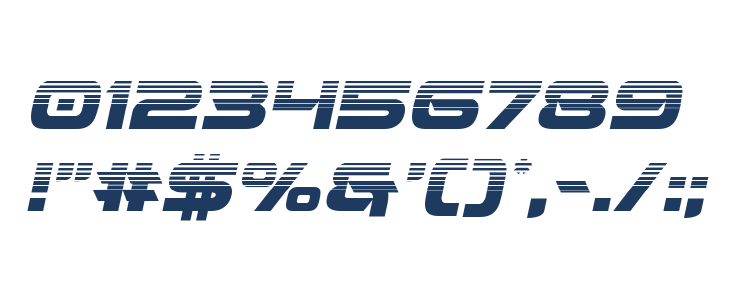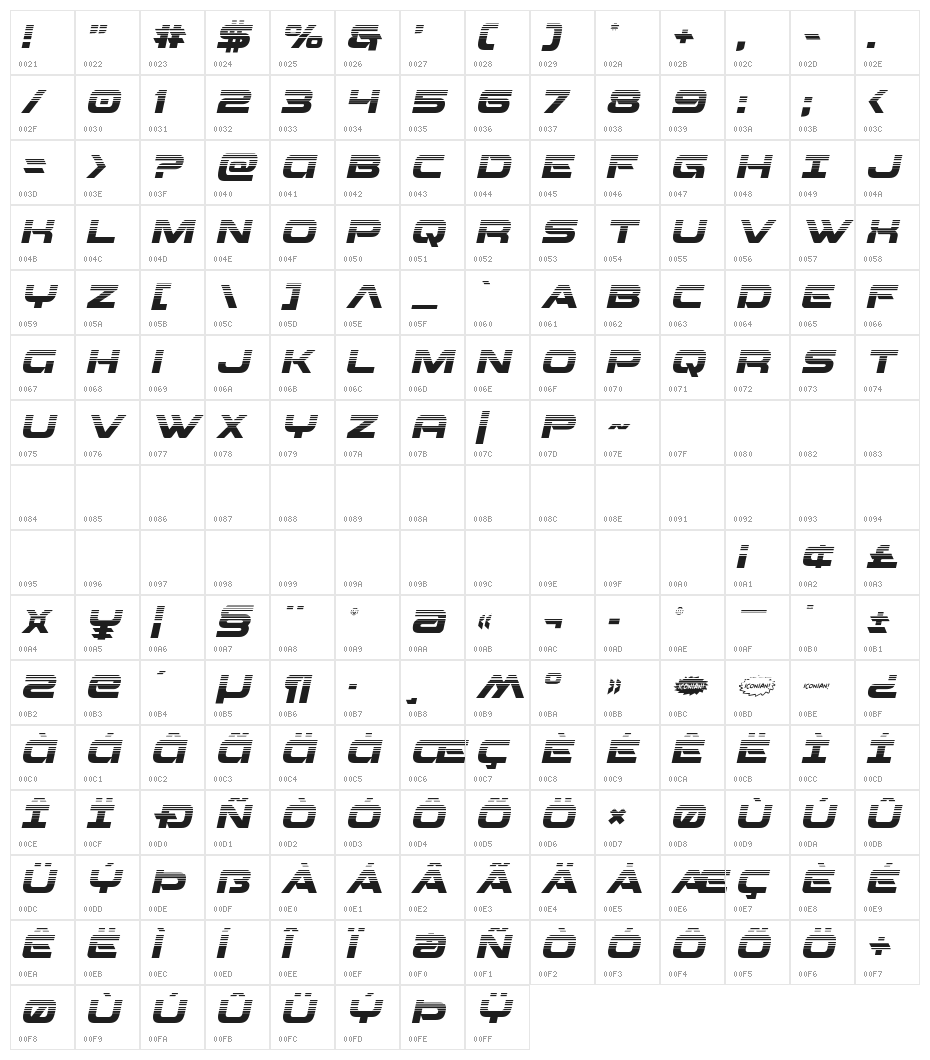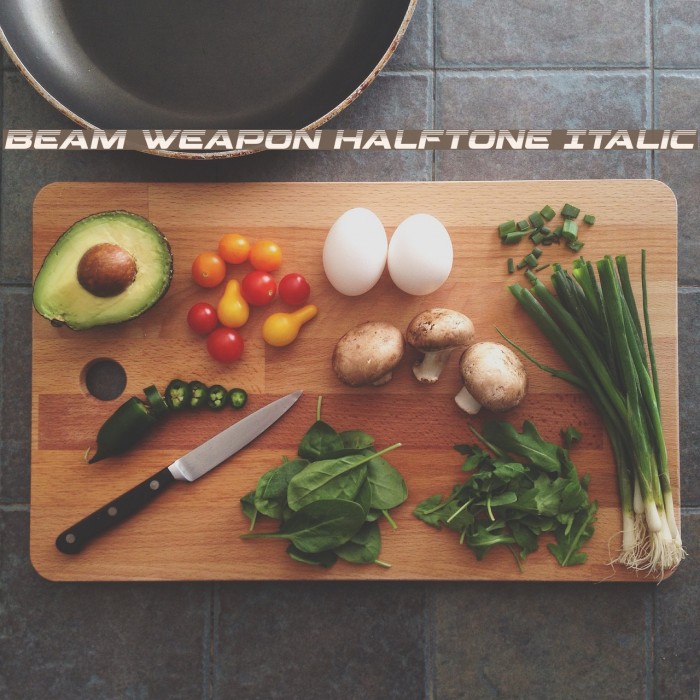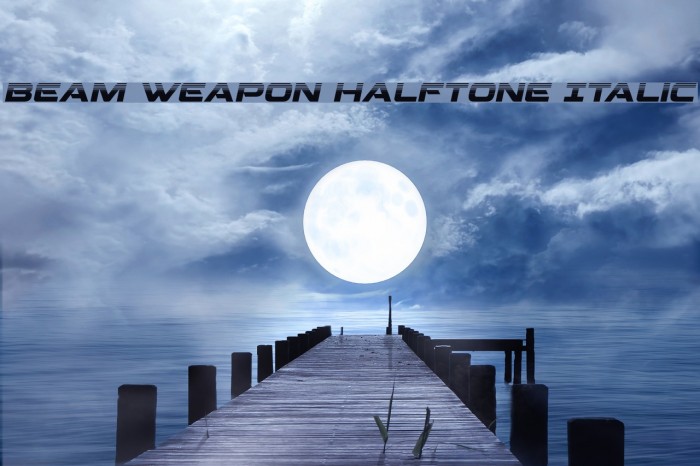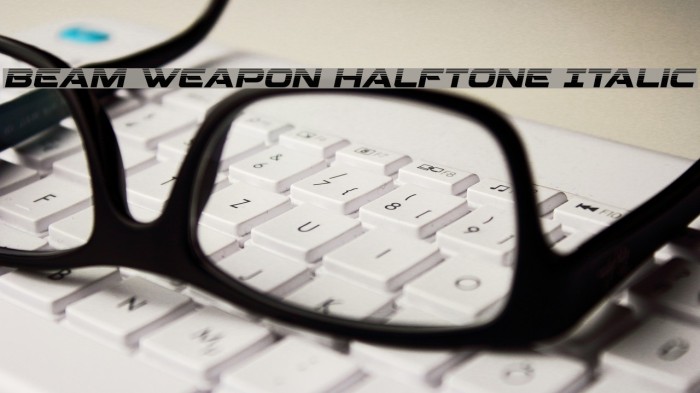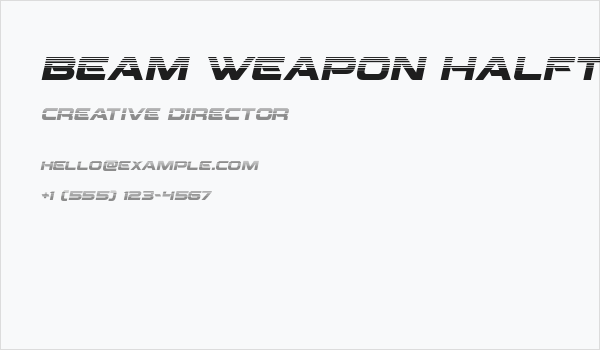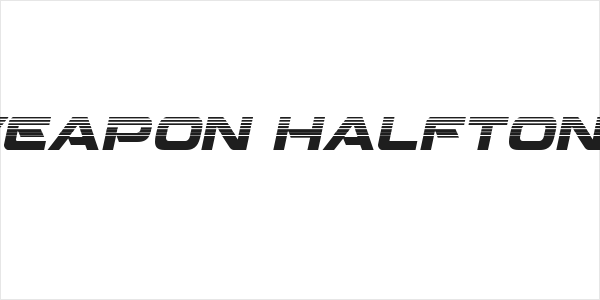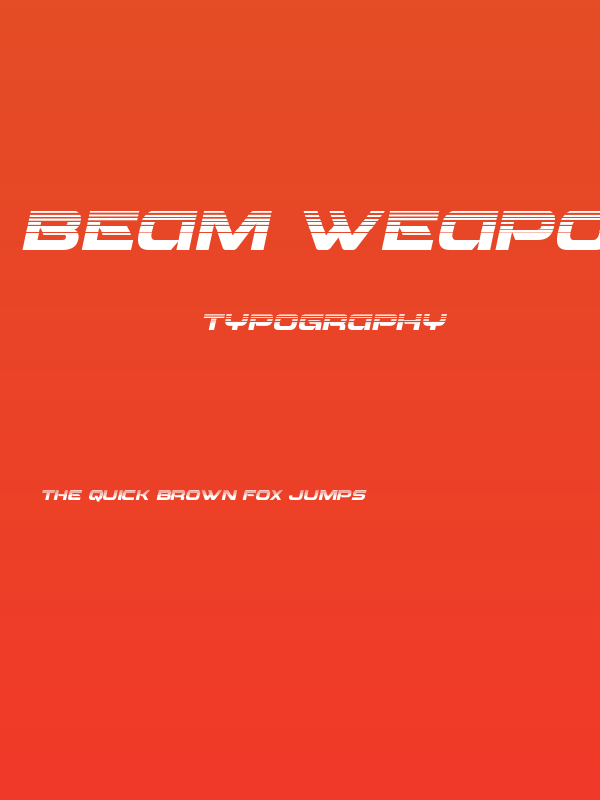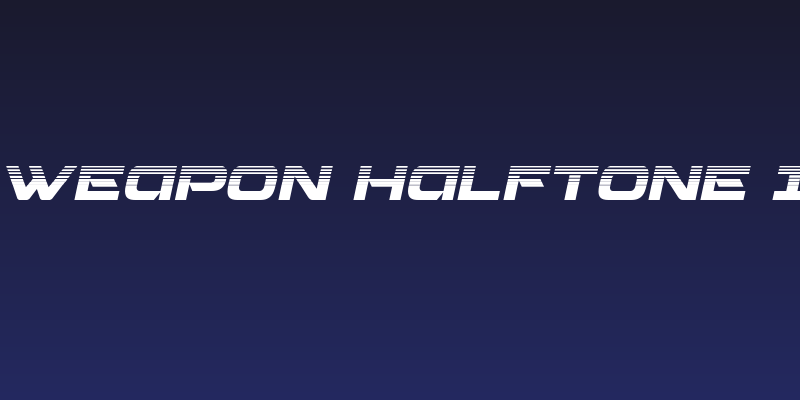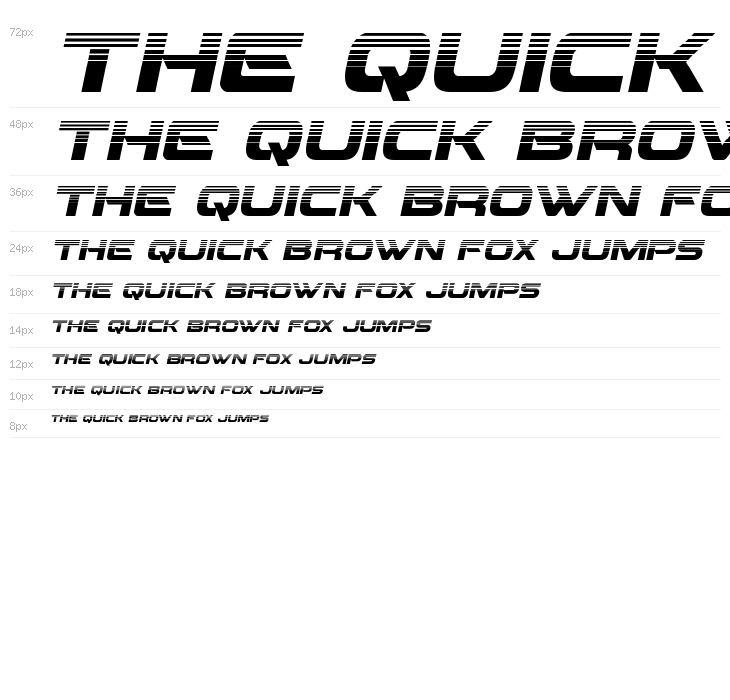
Beam Weapon Halftone Italic Font
Beam Weapon Halftone Italic Description
This font features a futuristic and dynamic design, characterized by its bold, italicized letters with a halftone effect. The characters are constructed with horizontal lines that create a sense of movement and speed, making it ideal for projects that require a modern and energetic look. The uppercase and lowercase letters maintain a consistent style, with sharp angles and a slightly condensed form. The numbers and special characters follow the same design principles, ensuring uniformity across all elements. This font is perfect for creating eye-catching headlines, posters, and branding materials that need a contemporary and impactful appearance.
| Proposed Projects | Ideal for sci-fi themed posters, video game graphics, tech branding, and futuristic advertisements. |